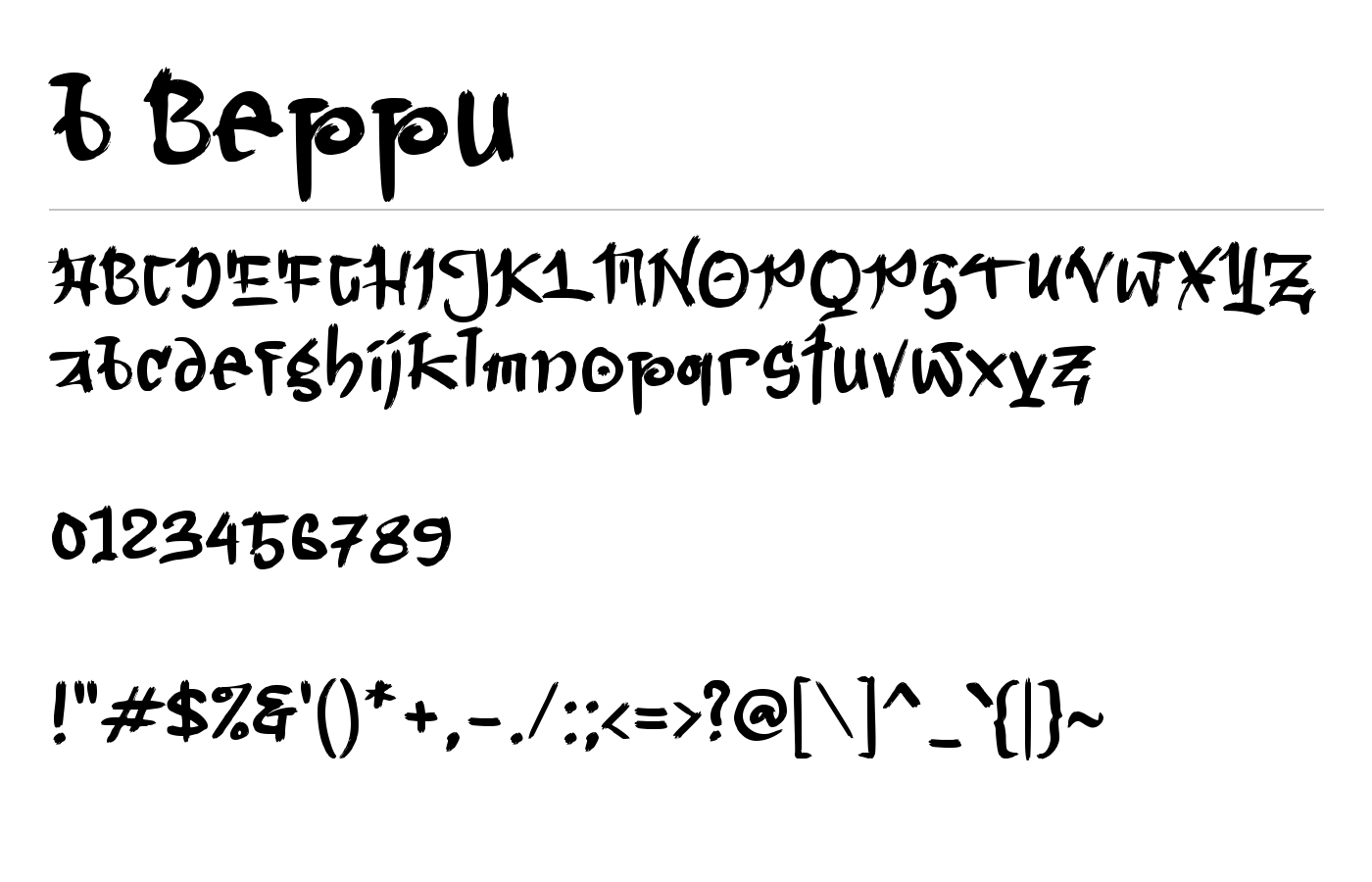
Beppu Font is a bold, expressive handwritten typeface with a lively, brushstroke texture that gives it a dynamic and artistic feel. Its irregular shapes and playful letterforms make it perfect for creative projects, posters, and branding that want to convey energy and uniqueness. This font works well in headlines or display uses where a strong, personal touch is desired.
b Beppu Font